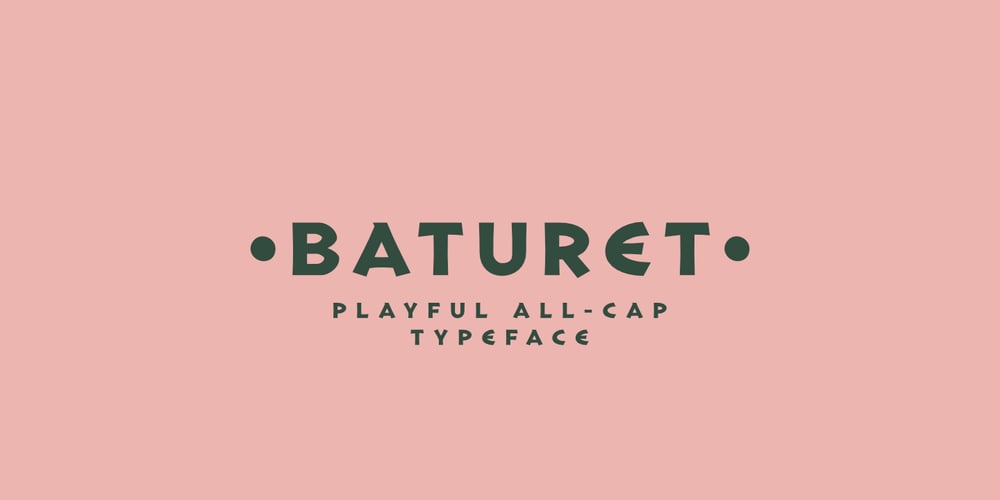
Baturet Font Family was designed by Muhammad Hastian and published by Hazztype. Baturet contains 1 styles and family package options. Baturet is a whimsical and playful display font that adds a touch of casual charm to any project. The fluid and organic shapes of the letters give this font a unique, handcrafted feel, making it an excellent choice for creative designs, branding, and projects that require a touch of personality. Whether you’re working on invitations, posters, or any other design where a playful vibe is desired, Baturet is sure to bring joy and a sense of fun to your typography.**Uppercase